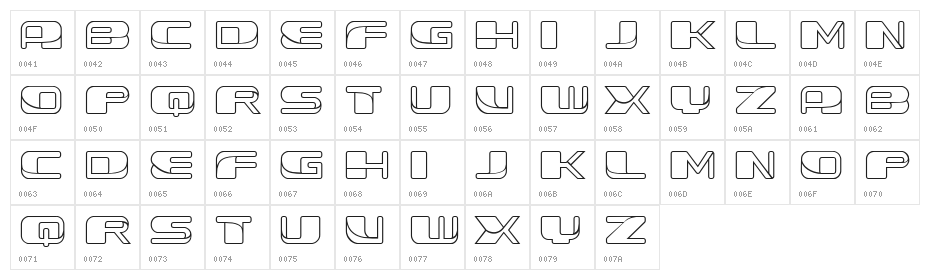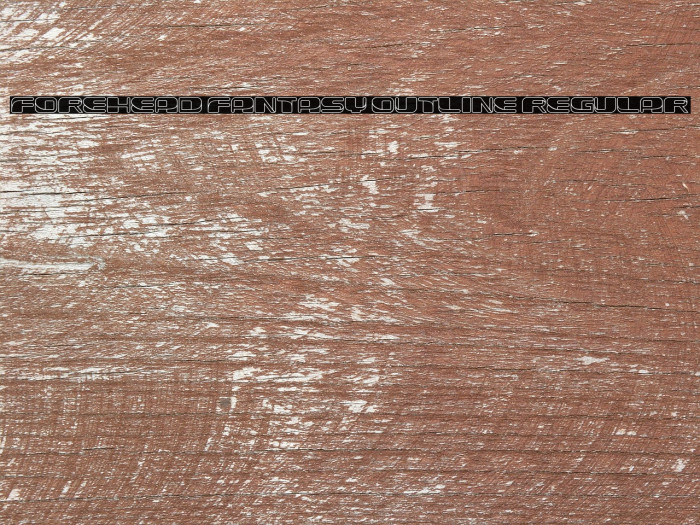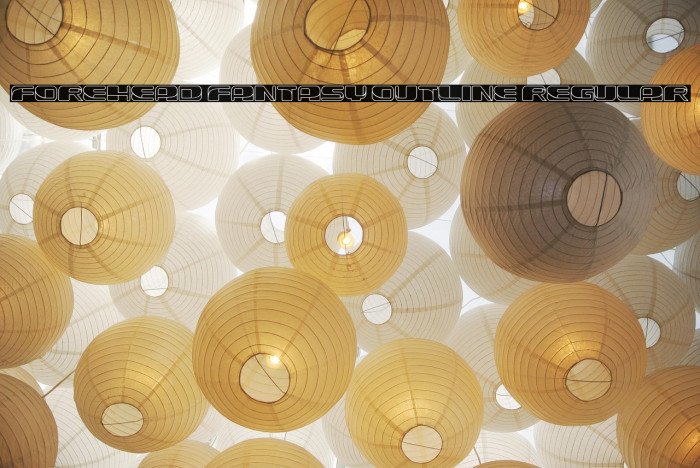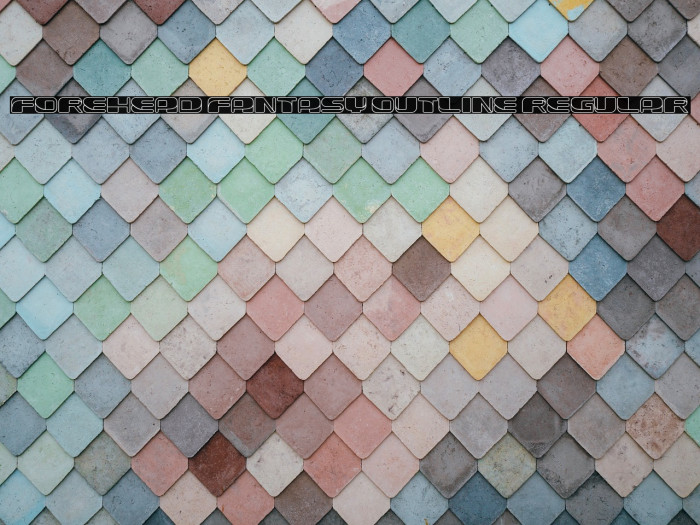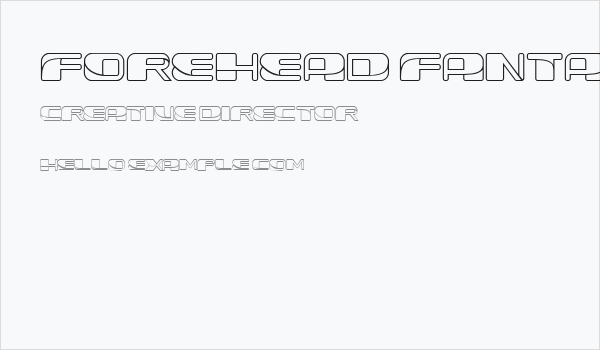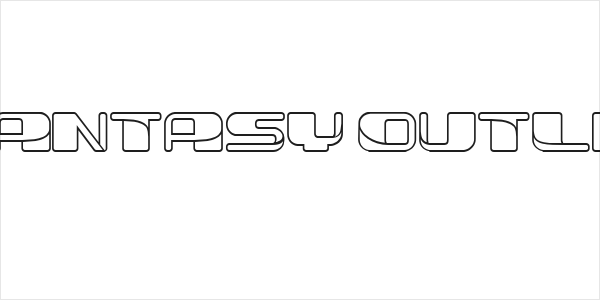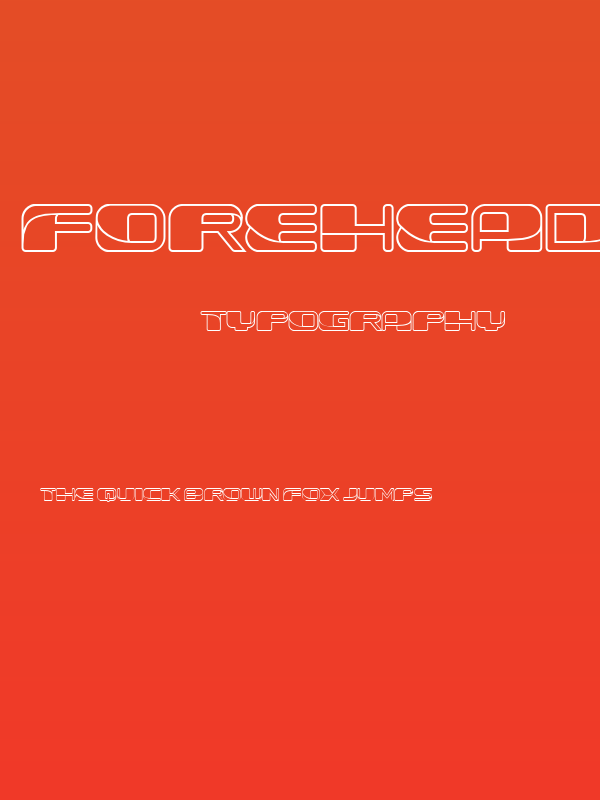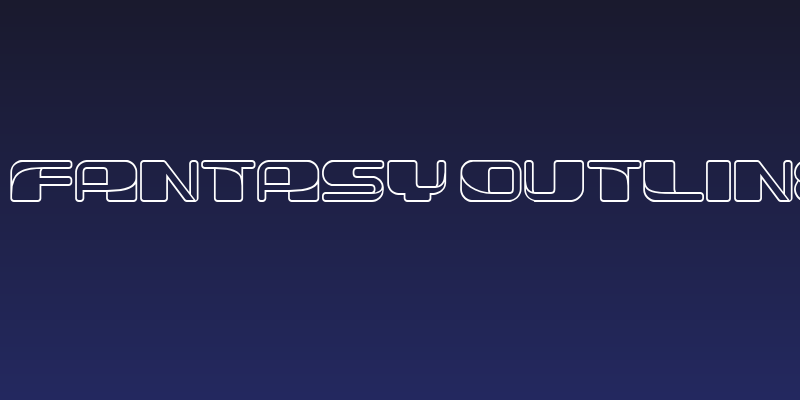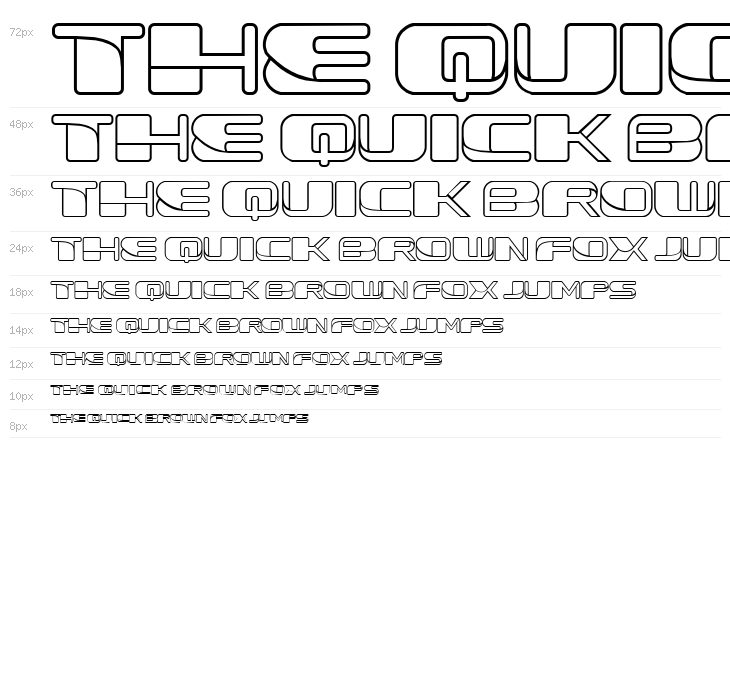
Forehead Fantasy Outline Regular Font
Forehead Fantasy Outline Regular Description
This font features a unique outline style with a futuristic and geometric design. Each character is crafted with a consistent line thickness, creating a hollow appearance that emphasizes its modern aesthetic. The uppercase letters exhibit a uniform height and width, contributing to a balanced and cohesive look. The font's structure is clean and precise, with sharp angles and smooth curves that enhance its contemporary feel. Its distinct outline form makes it highly legible, even at smaller sizes, while maintaining an artistic flair. The overall design is sleek and minimalistic, making it suitable for a variety of creative applications.